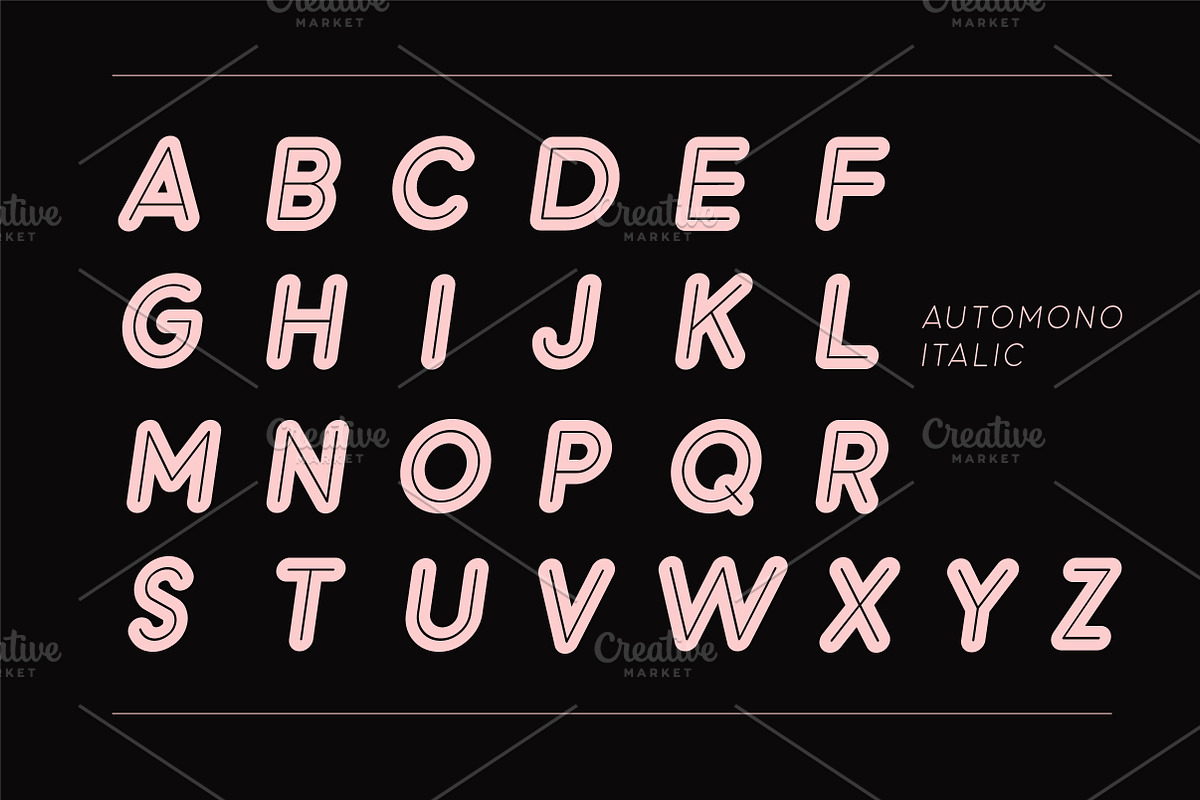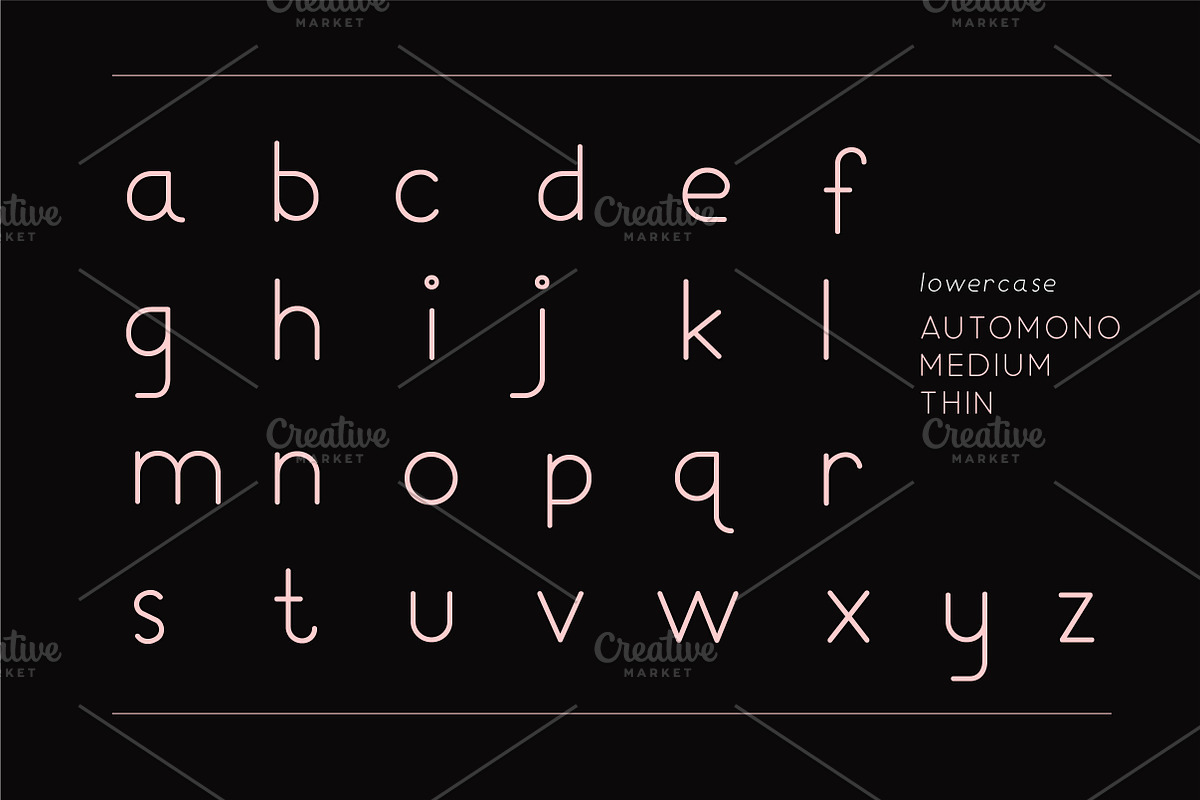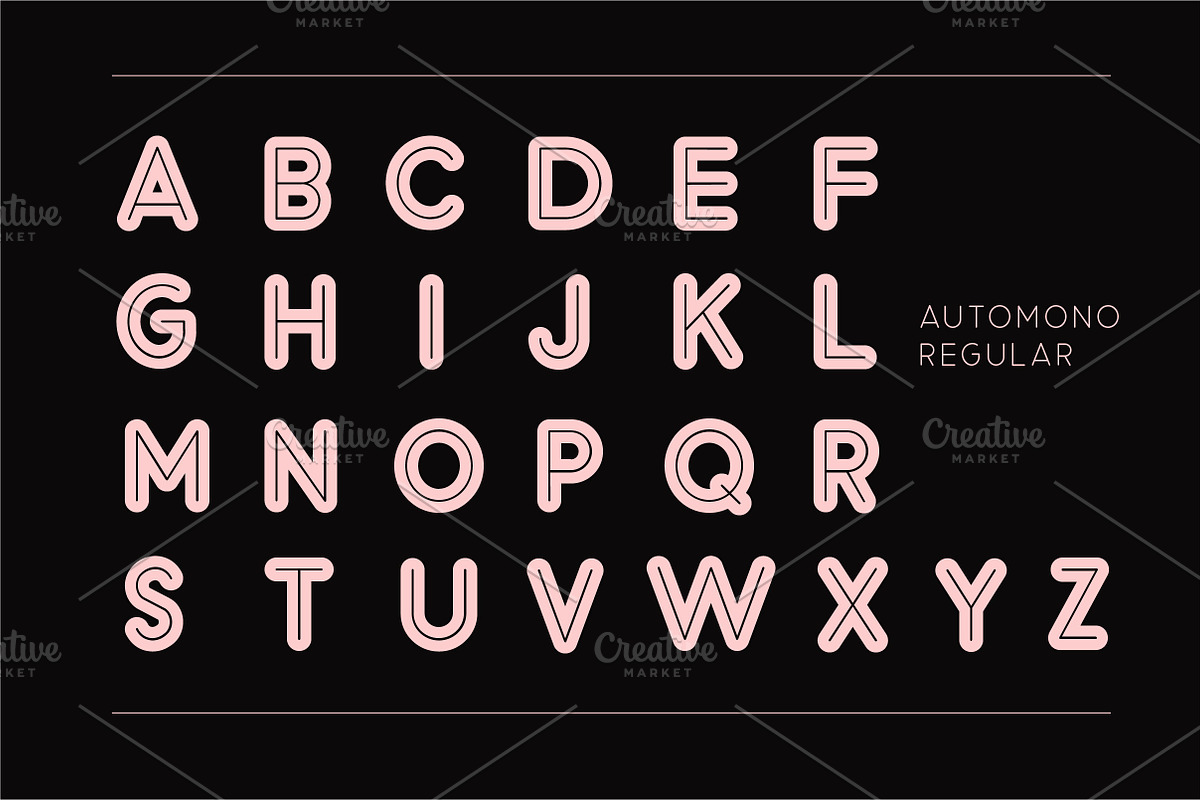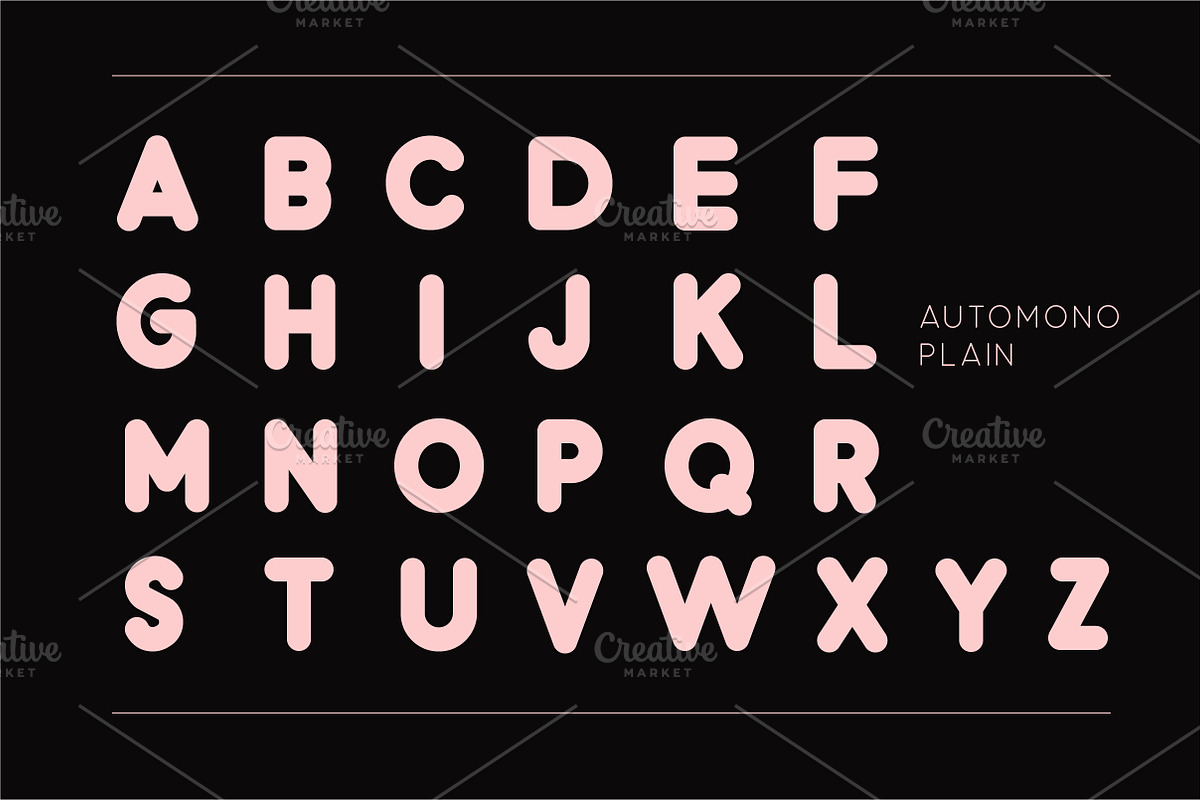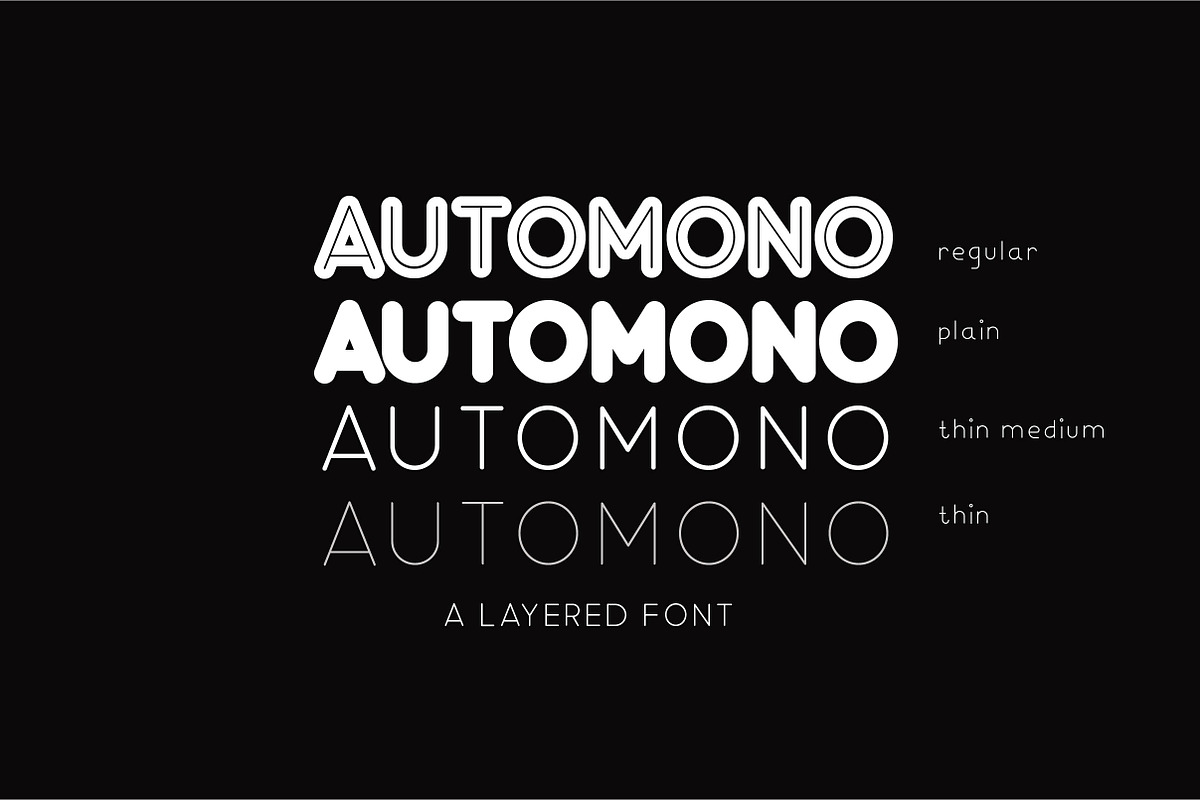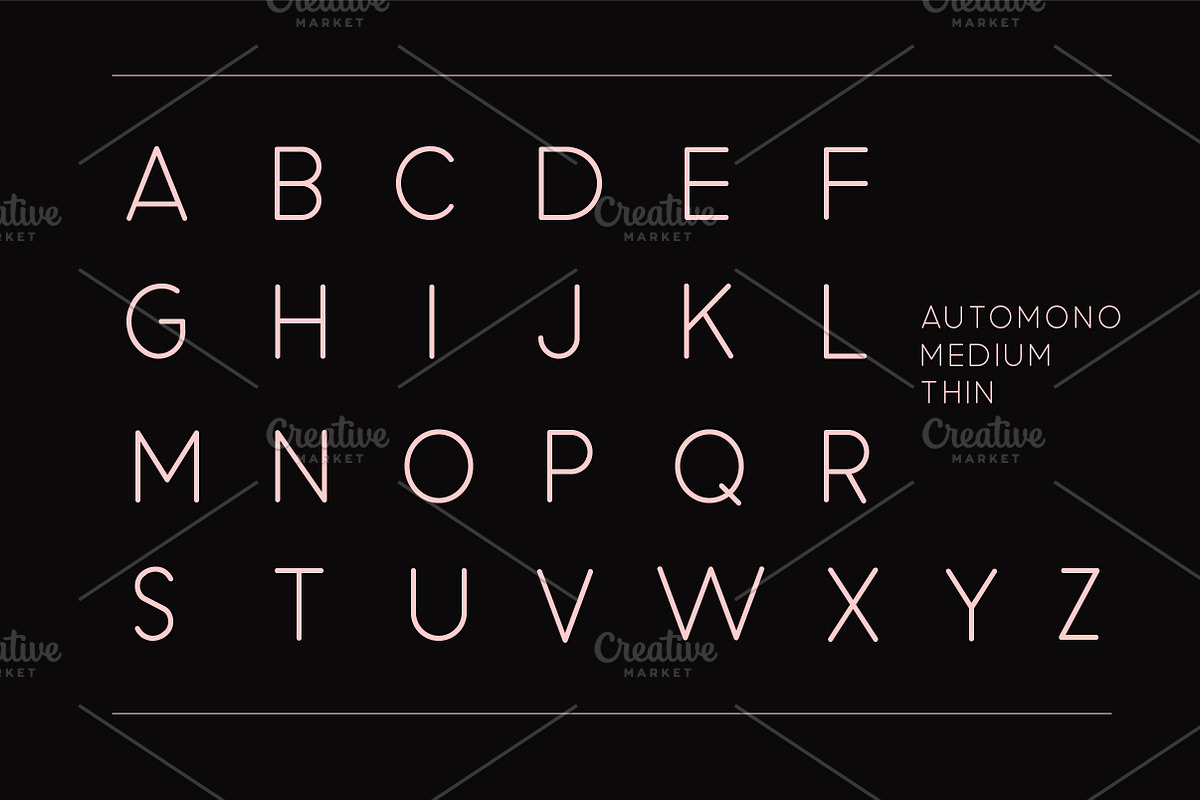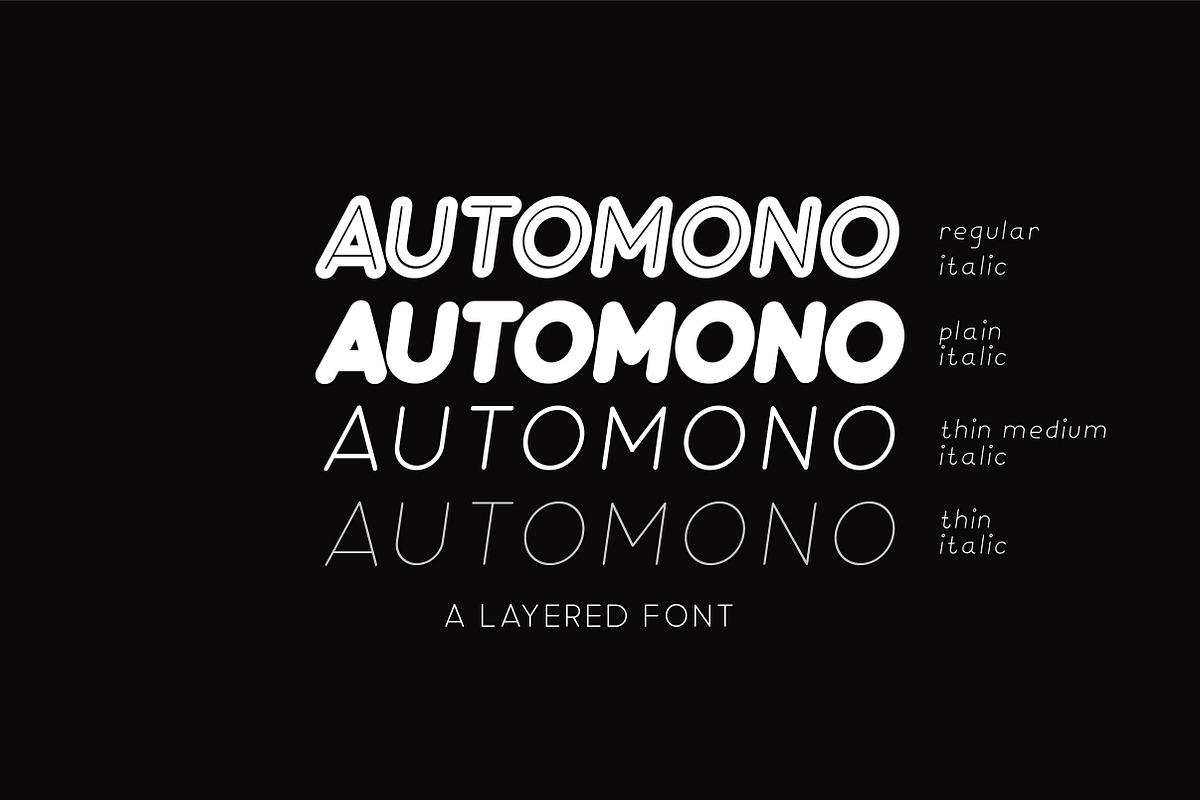
Automono Fonts
Automono is a layered font with 16 fonts family. It is suitable for a clean and simple design.
Why Automono Fonts is worth a look
Automono Fonts by caocastudio fits naturally into Branding, posters, packaging, typography.